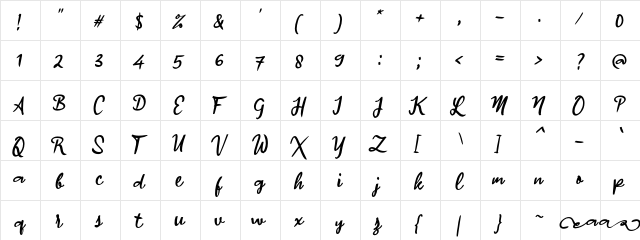
a Artinya Regular
| Designer | Wahyu Eka Prasetya |
Design Context for a Artinya Typeface
a Artinya is a composed and adaptable typeface that performs quietly and consistently across a wide range of design contexts.